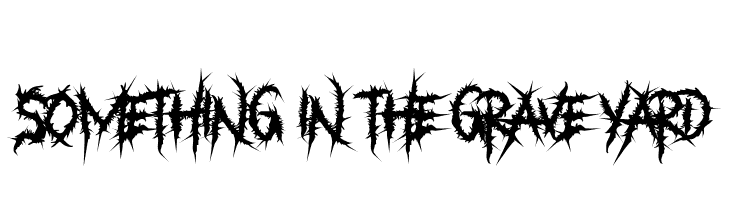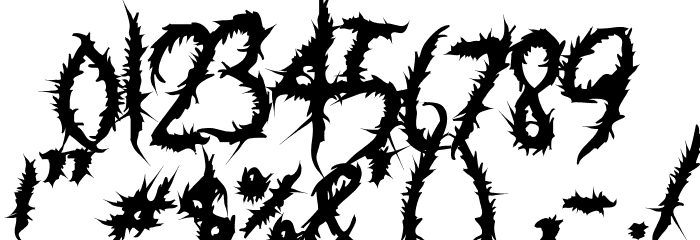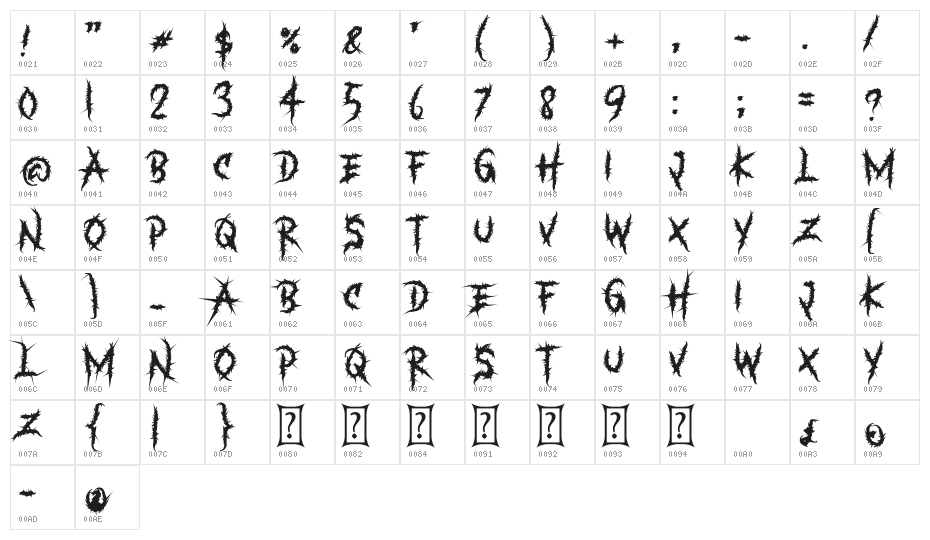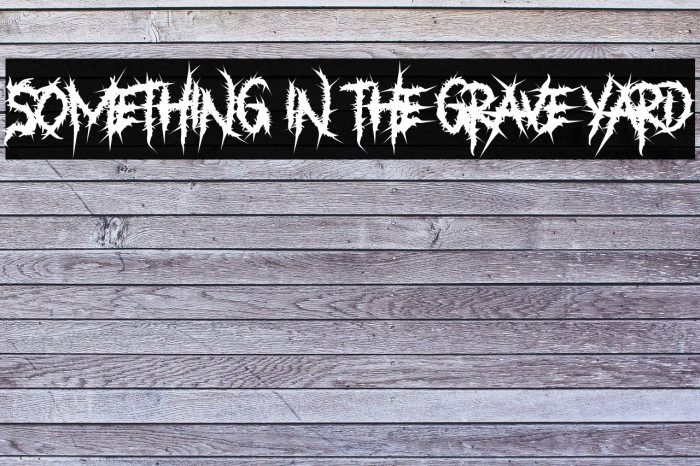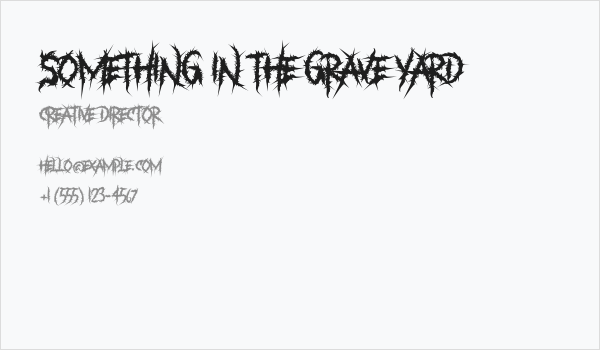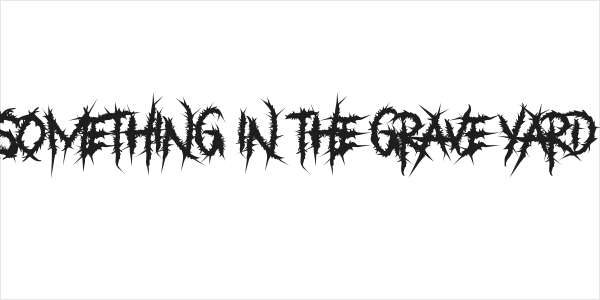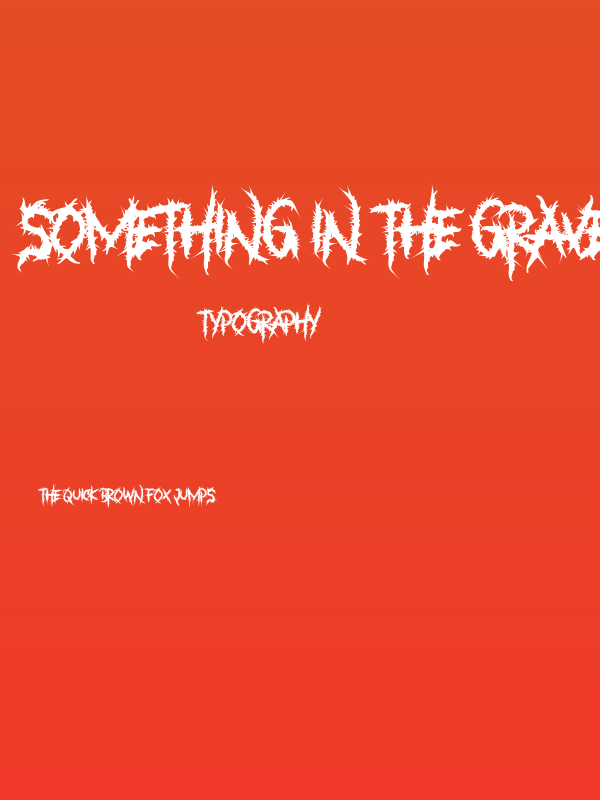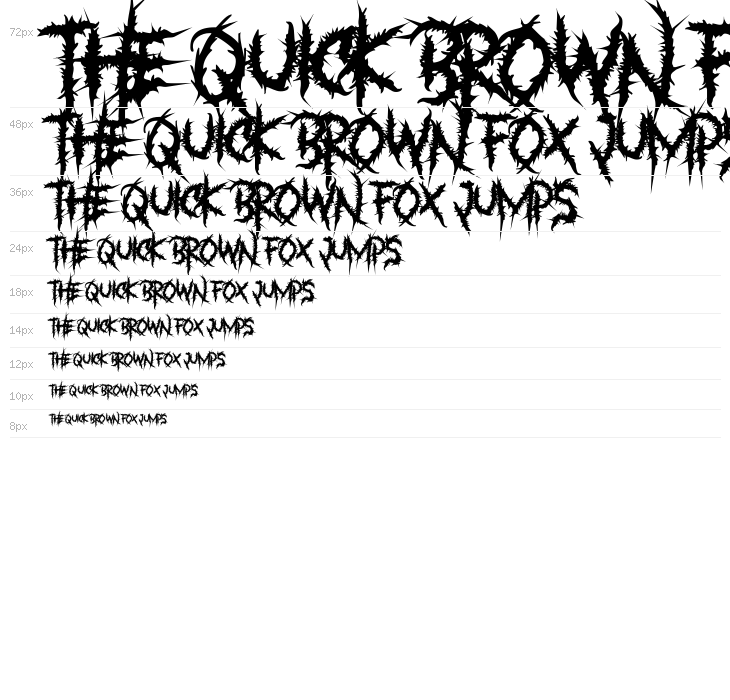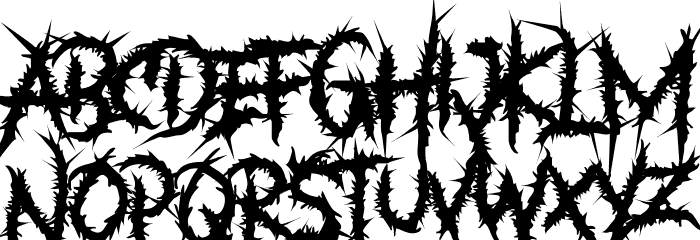
Something in The Grave Yard Font
Something in The Grave Yard Description
This font features a highly decorative and intricate design, reminiscent of thorny vines or barbed wire. Each character is enveloped in sharp, jagged edges, creating a sense of danger and intensity. The letters are bold and striking, with a chaotic yet deliberate arrangement of spikes that give it a unique and edgy appearance. The overall aesthetic is dark and gothic, making it ideal for projects that require a dramatic and impactful visual statement. The font's complexity and detail make it stand out, ensuring that any text set in this style will capture attention and convey a sense of mystery and intrigue.
| Overall Style | Gothic, Dark, Edgy |
| Proposed Projects | Ideal for horror-themed posters, Halloween invitations, band logos, and edgy graphic designs. |